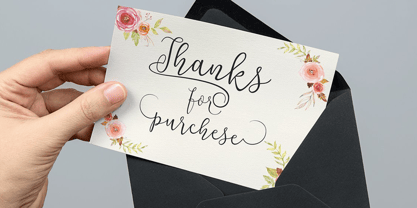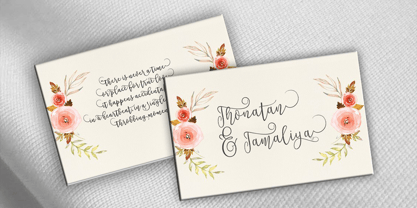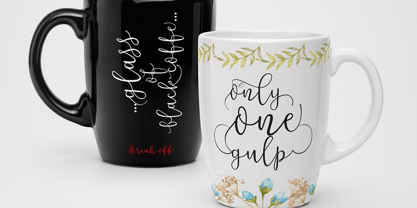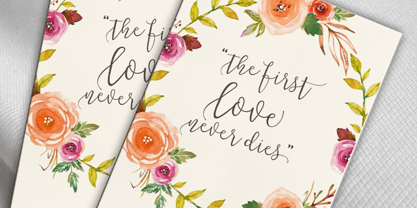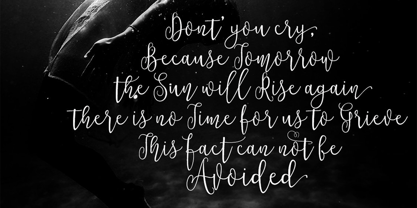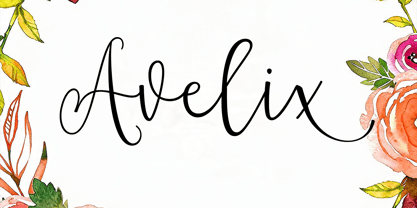
Avelix
Avelix – Elegant Calligraphy Font
Avelix is a luxurious calligraphy font that beautifully combines timeless elegance with modern sophistication. Featuring flowing handwritten strokes, graceful curves, and refined letter connections, Avelix brings a sense of romance and artistry to every design.
Crafted with attention to detail, Avelix captures the charm of traditional calligraphy while maintaining a clean and contemporary appearance. Its smooth rhythm and elegant swashes create a natural handwritten feel, making it perfect for projects that require beauty, style, and a touch of exclusivity.
From wedding invitations and luxury branding to fashion editorials and premium packaging, Avelix is designed to elevate your typography with effortless elegance and visual appeal.
Features
• Elegant calligraphy style
• Smooth handwritten flow
• Beautiful swashes and flourishes
• Uppercase and lowercase characters
• Numbers and punctuation
• Ligatures and stylistic alternates
• Multilingual support
• Suitable for both print and digital projects
Perfect For
• Wedding invitations
• Luxury branding
• Signature logos
• Beauty and fashion brands
• Product packaging
• Greeting cards
• Social media graphics
• Photography watermarks
• Editorial headlines
• Quotes and typography artwork